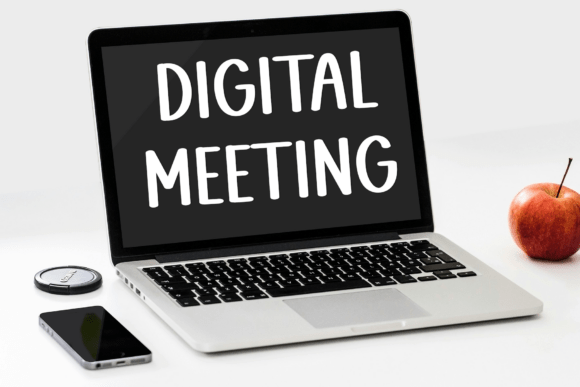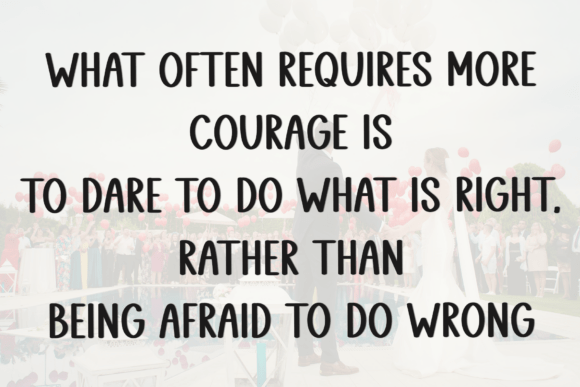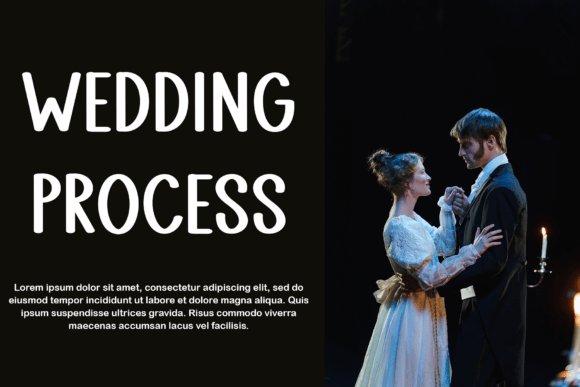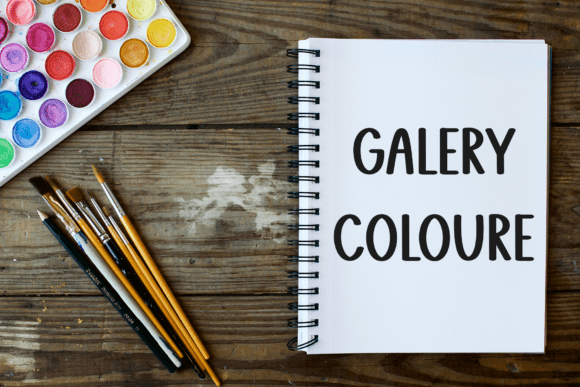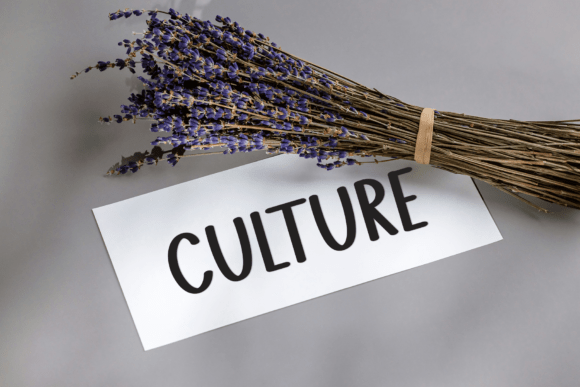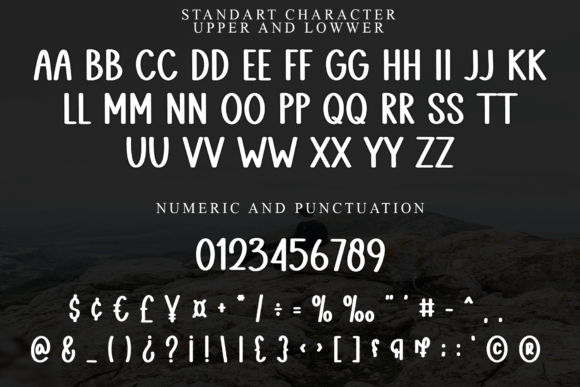
Introducing Banana Bread Font: The Perfect Blend of Playfulness and Personality
Are you tired of using the same old fonts in your designs? Look no further! Banana Bread Font is a display handwritten font that brings a fresh and exciting vibe to any creative project. With its bold character, warm, and personal touch, this font is perfect for designers and crafters who want to add a dash of personality and charm to their work.
A Font that Speaks to You
Banana Bread Font is a unique and eye-catching font that blends bold character with a warm, personal touch. Its playful, chunky strokes and friendly letterforms give off a casual, inviting vibe that’s perfect for kids’ designs, social posts, greeting cards, or branding that needs a bit of personality. Whether you’re a designer, crafter, or DIY enthusiast, this font is sure to bring a smile to your face and inspire your creativity.
Banana Bread Font is versatile and can be used in a variety of creative projects, such as:
- Kids’ designs: Add a playful touch to your kids’ party invitations, posters, or activity sheets.
- Social posts: Make your social media posts stand out with a friendly and approachable font.
- Greeting cards: Add a personal touch to your greeting cards and make them extra special.
- Branding: Give your brand a unique and charming personality with this eye-catching font.
What Makes Banana Bread Font Special?
So, what sets Banana Bread Font apart from other fonts? Here are a few features that make it special:
- Playful strokes: The chunky strokes and friendly letterforms give off a casual, inviting vibe.
- Bold character: The font has a bold character that’s perfect for making a statement.
- Warm and personal touch: The font has a warm and personal touch that makes it perfect for designs that need a bit of personality.
- Eye-catching: The font is eye-catching and full of life, making it perfect for designs that need to stand out.
Tips for Using Banana Bread Font
Here are a few tips for using Banana Bread Font in your designs:
- Use it for headings: The font is perfect for headings and titles, where you want to make a statement.
- Pair it with other fonts: Pair Banana Bread Font with other fonts to create a unique and interesting contrast.
- Experiment with colors: The font looks great in bright and bold colors, so don’t be afraid to experiment.
- Keep it simple: Don’t overcomplicate your design – keep it simple and let the font do the talking.
Banana Bread Font is a unique and exciting font that’s perfect for designers and crafters who want to add a dash of personality and charm to their work. With its playful strokes, bold character, and warm, personal touch, this font is sure to bring a smile to your face and inspire your creativity. So why not give it a try and see what amazing designs you can create?
Whether you’re a seasoned designer or a DIY enthusiast, Banana Bread Font is a great addition to your font collection. So go ahead, get creative, and have fun with this amazing font!